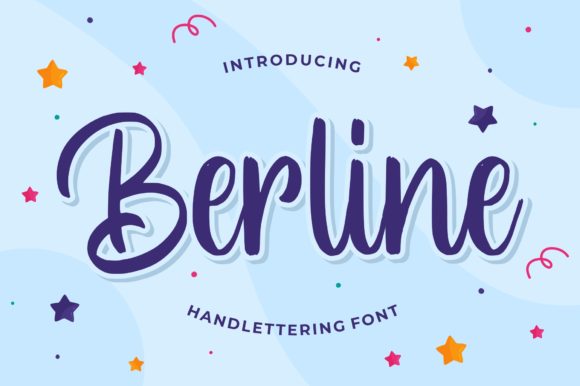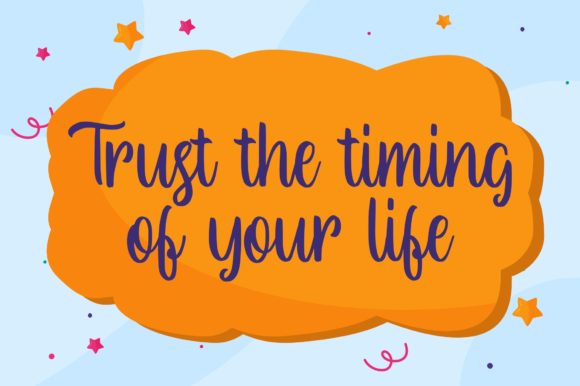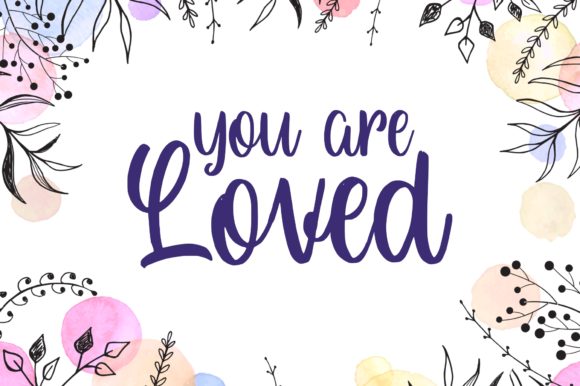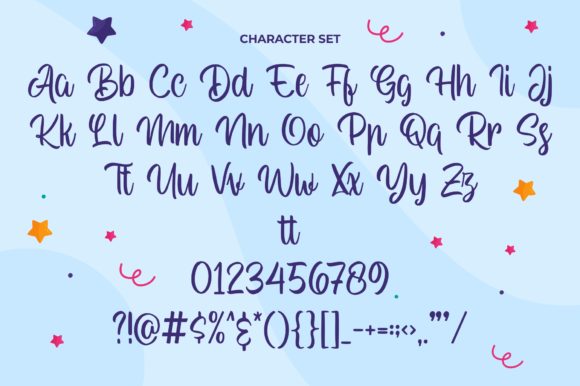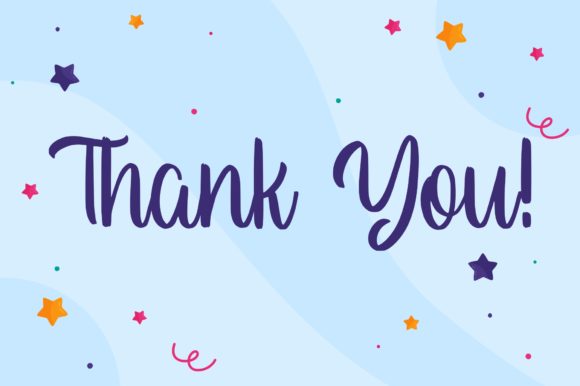
Berline Font
About Berline Font
Berline is a cute and casual handwritten font with an incredibly friendly feel. Whether you’re looking for fonts for Instagram or calligraphy scripts for DIY projects, this font will turn any creative idea into a true piece of art!